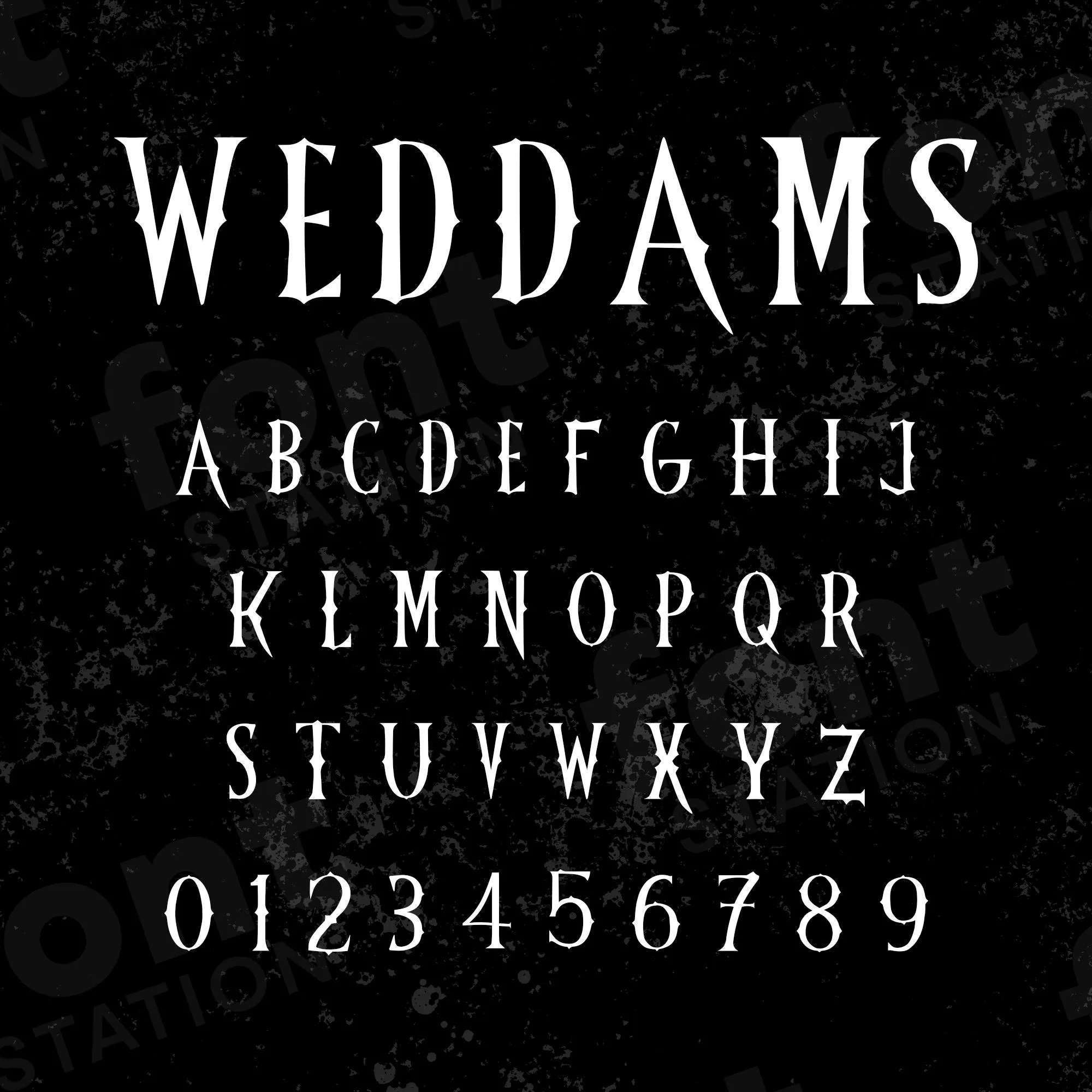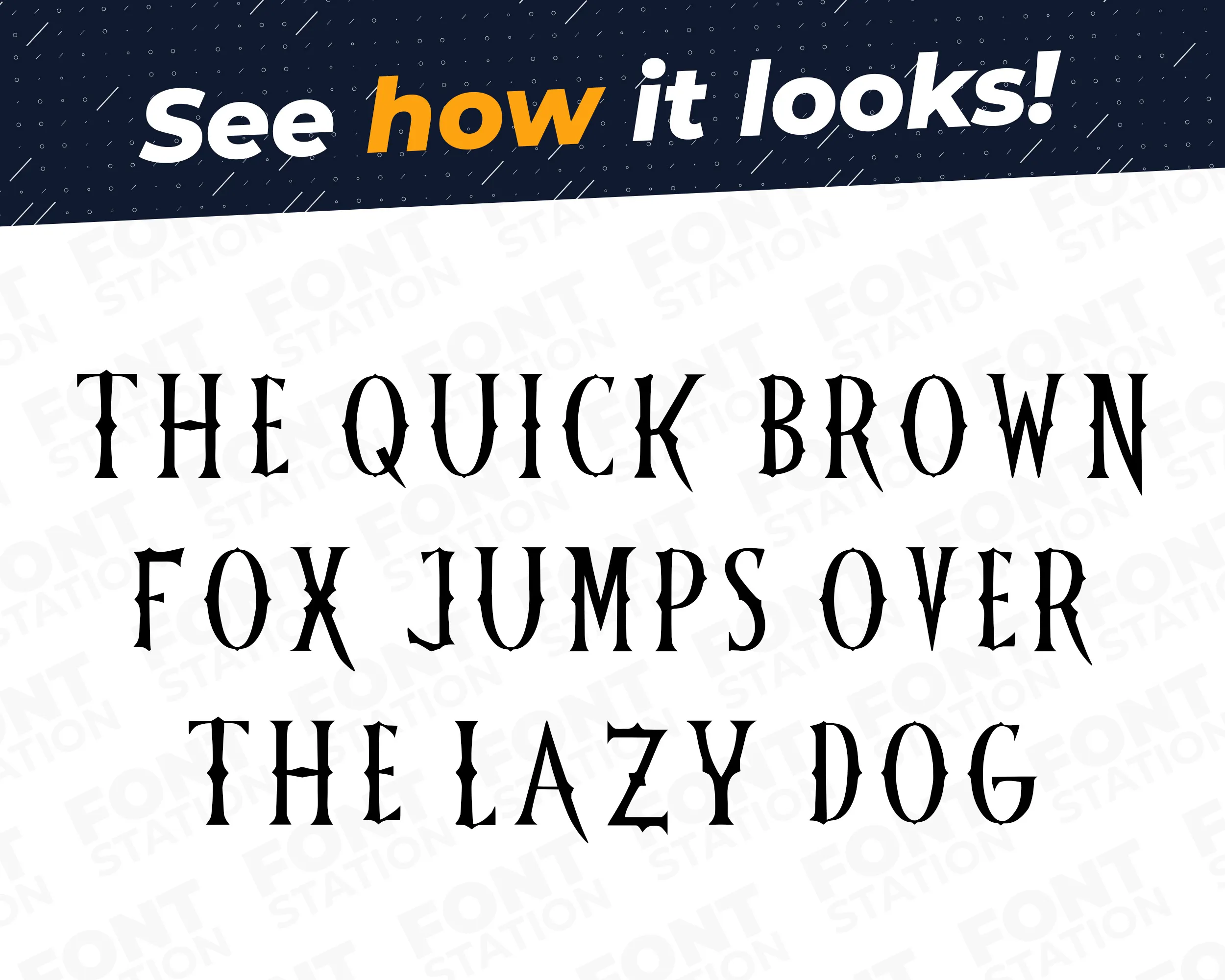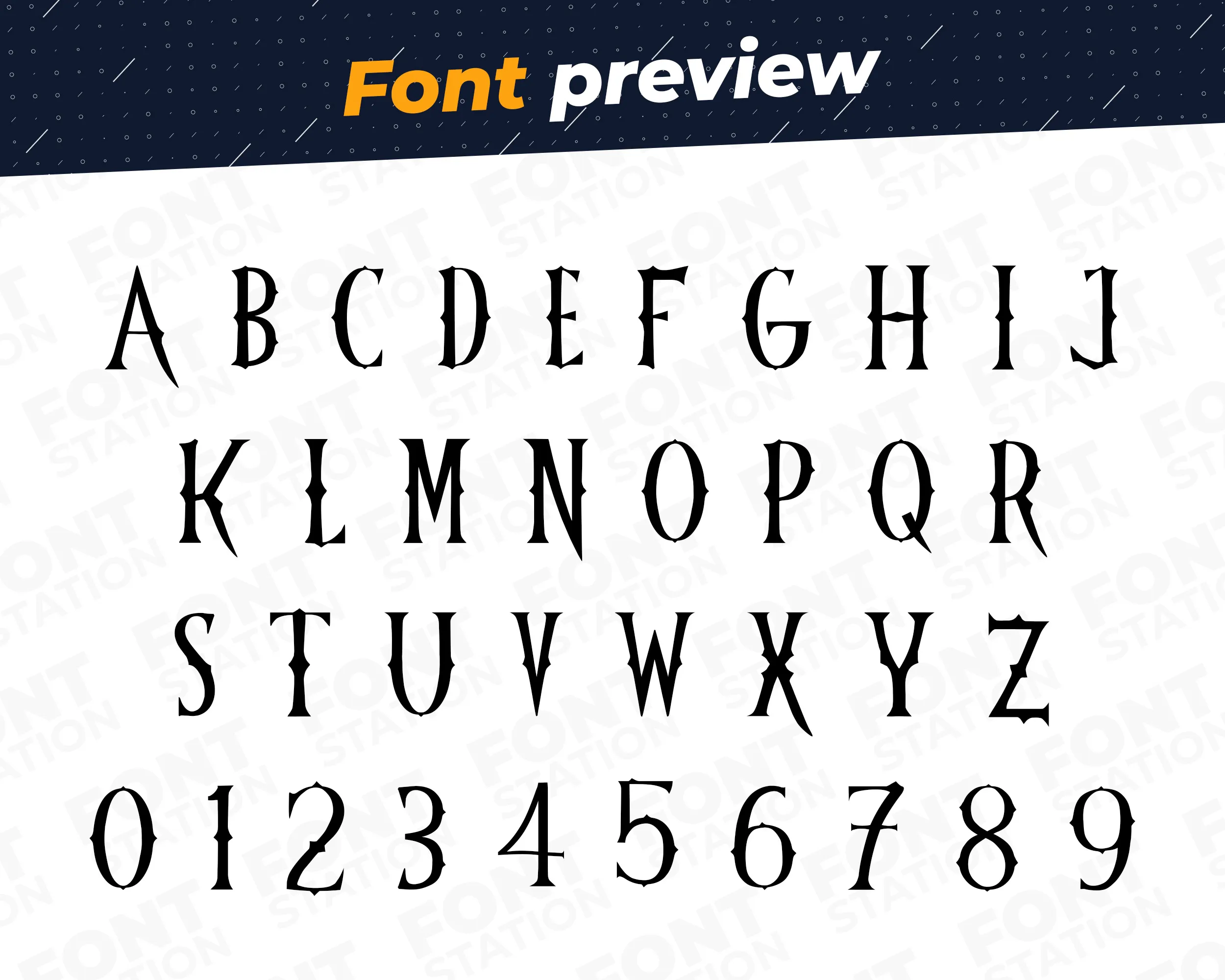
Our Gothic Weddams typeface, inspired from Wednesday Addams font
Grab your computer, tablet or other device and start creating right now with our Wednesday Addams font letters! Our Gothic Weddams typography is inspired from Wednesday Addams TV series font, making it ideal for various digital creations (logo, word…), sublimation, cake toppers, stickers, event decorations, and more.